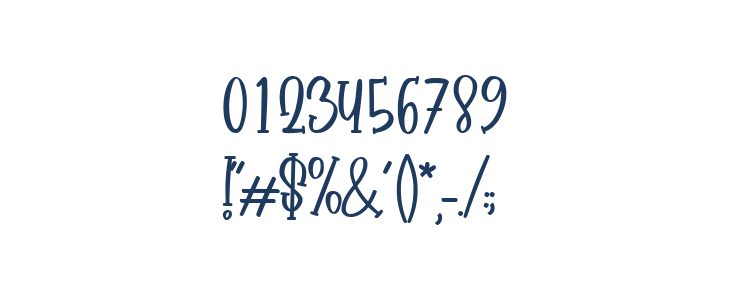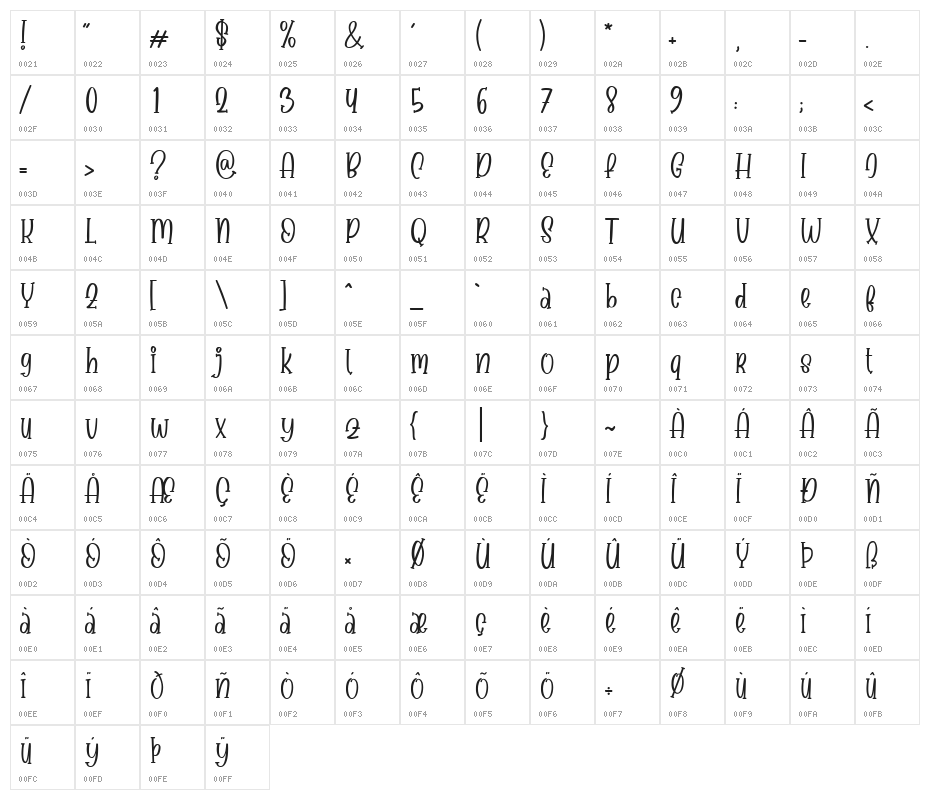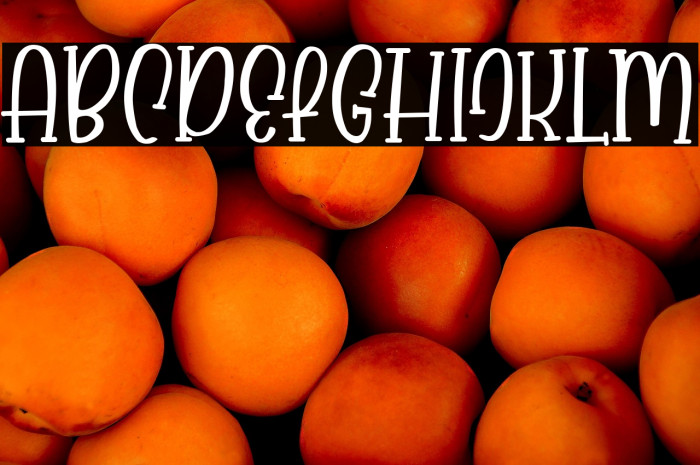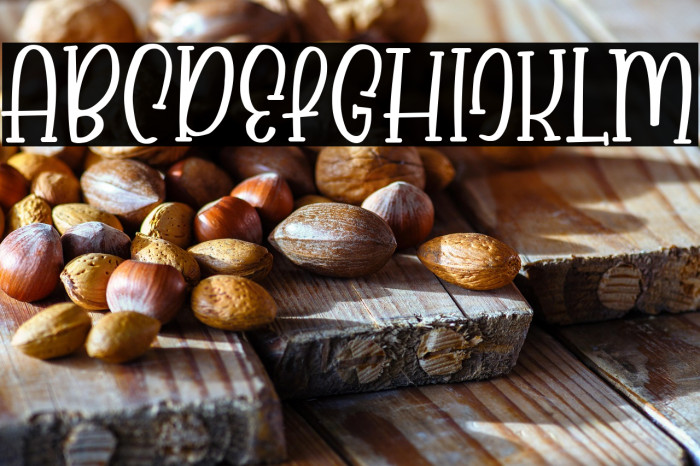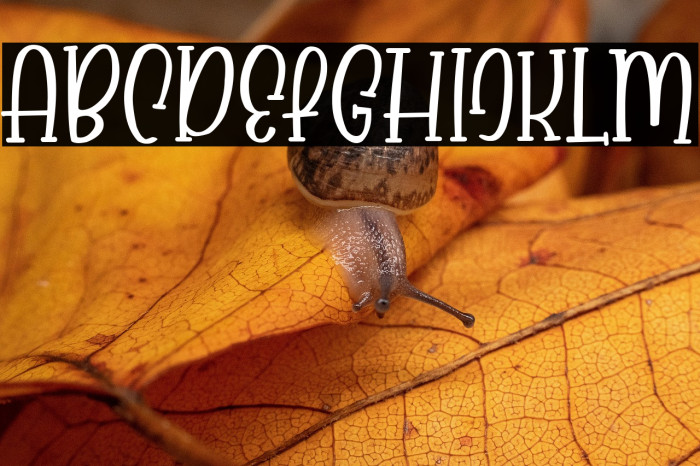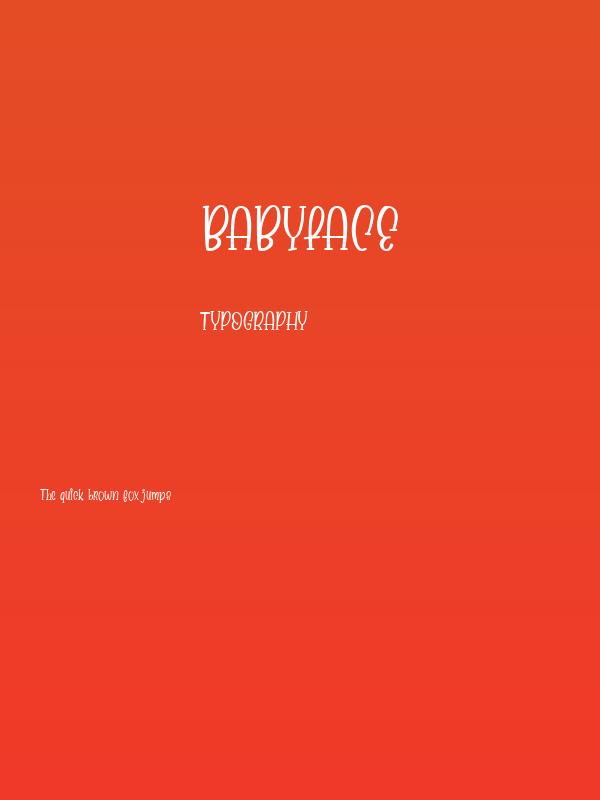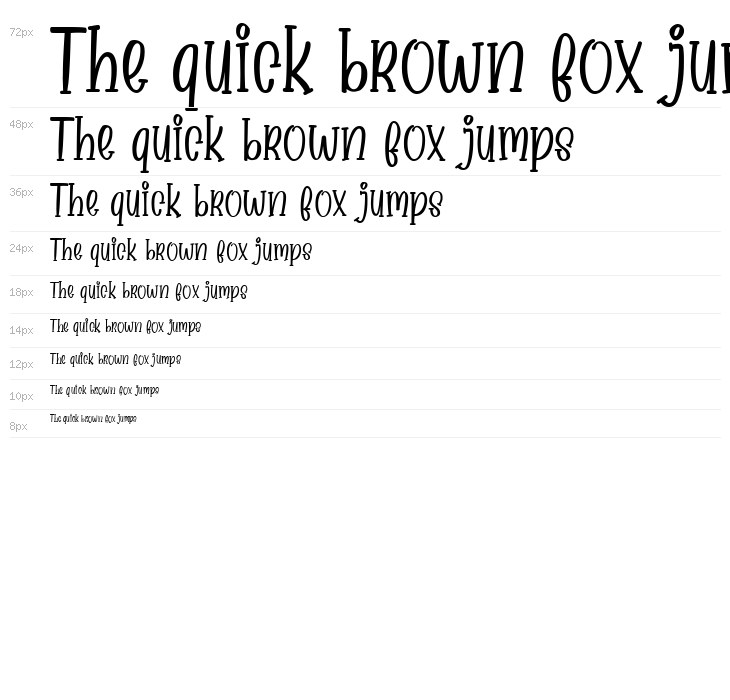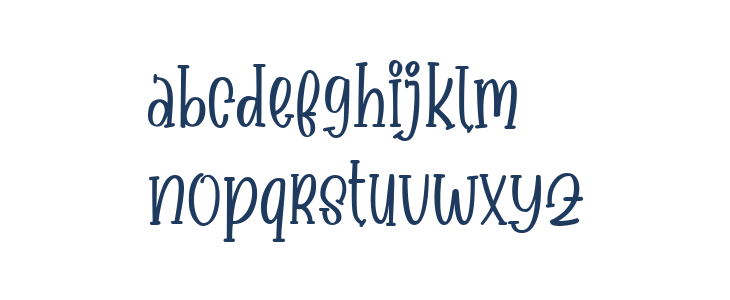
Babyface Font
Babyface Description
This font features a playful and whimsical design with a handwritten style. The characters have a unique, slightly irregular form that adds a touch of charm and personality. The uppercase letters are tall and narrow, with a slight curve that gives them a friendly appearance. The lowercase letters maintain a consistent style, complementing the uppercase with their rounded edges and smooth lines. Numbers and special characters follow the same playful aesthetic, making the font versatile for various creative projects. The overall look is casual yet stylish, perfect for adding a fun element to any design.
| Proposed Projects | Ideal for children's books, greeting cards, playful branding, and creative invitations. |